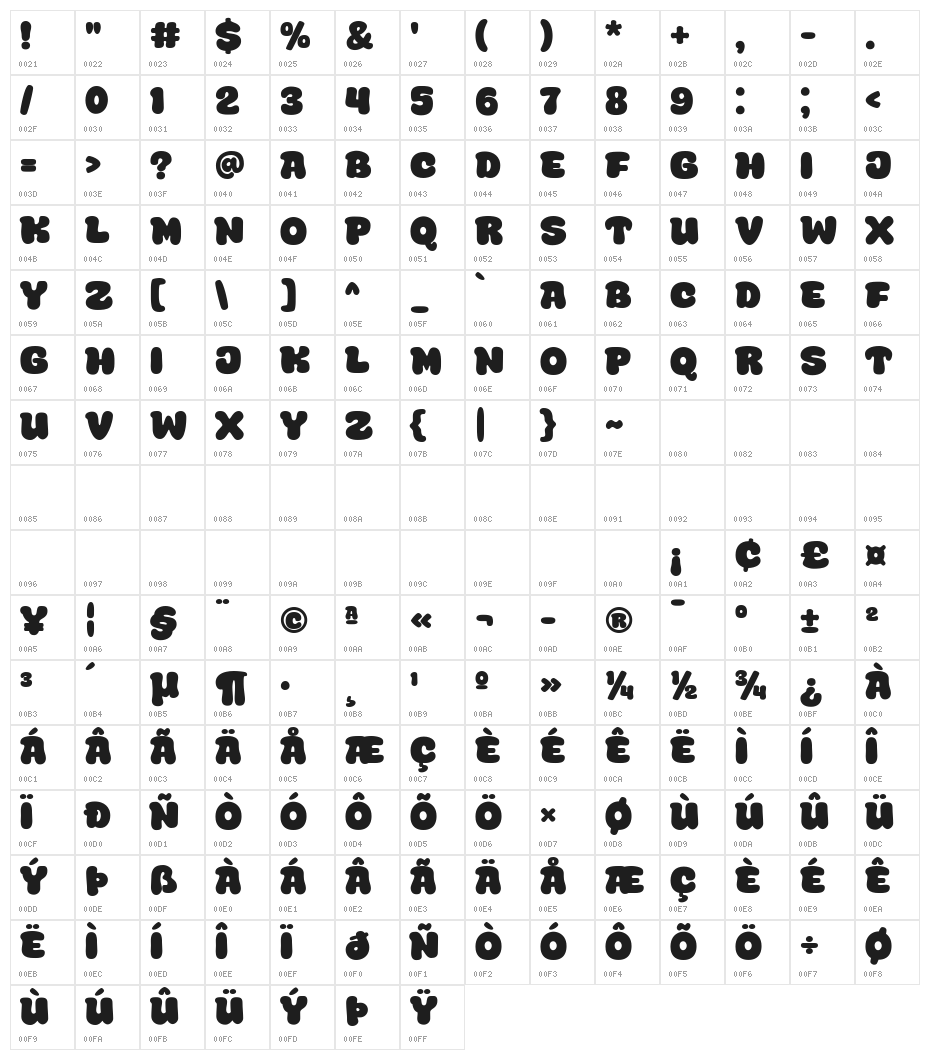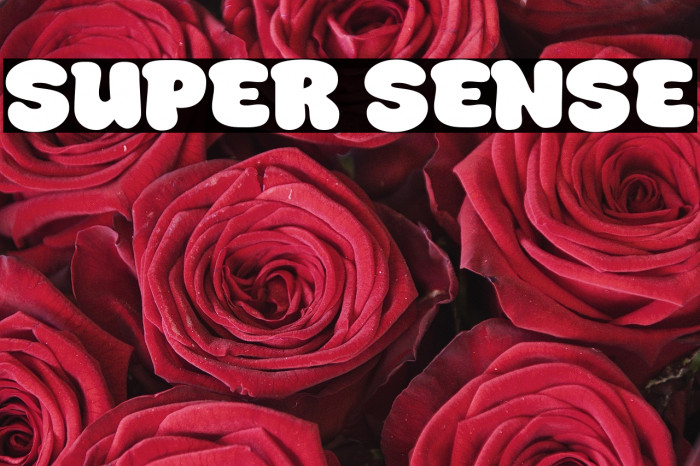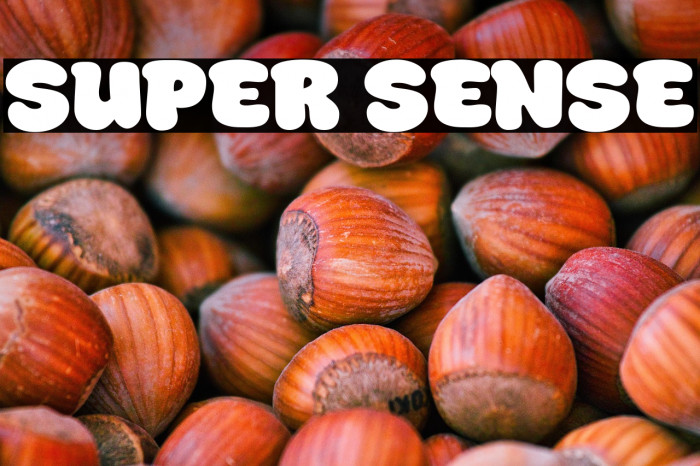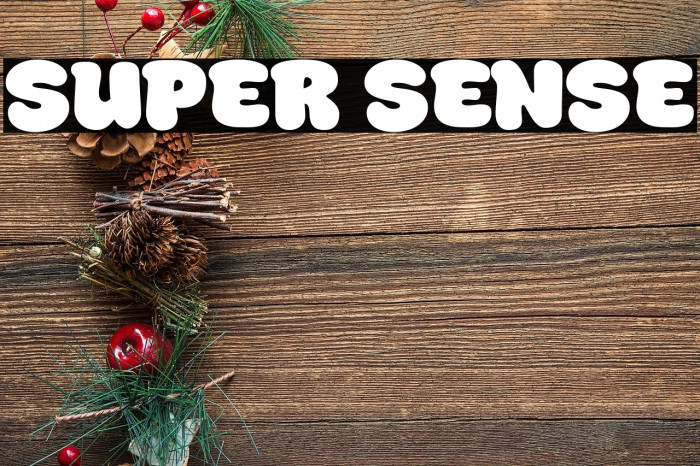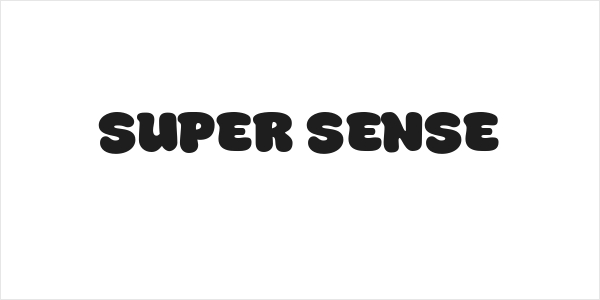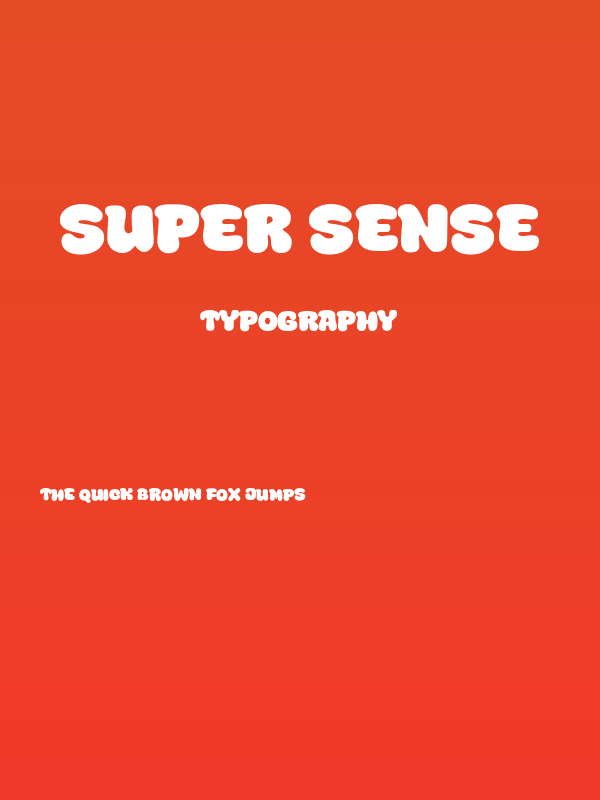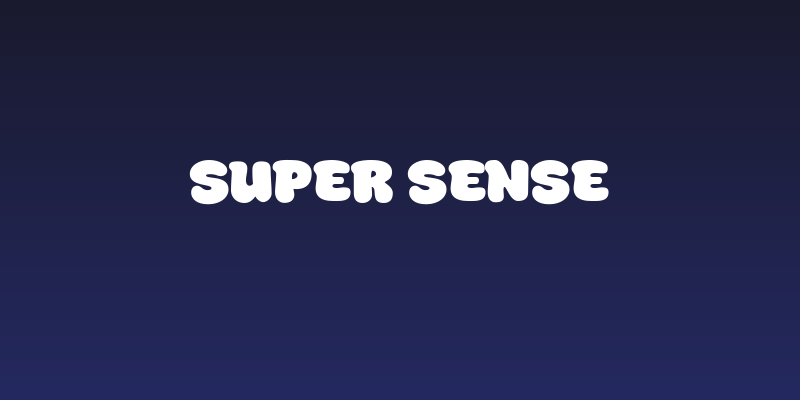
Super Sense Font
Super Sense Description
This font features bold, rounded characters with a playful and chunky appearance. The letters are uniformly thick, giving a sense of weight and presence. The rounded edges and lack of sharp corners contribute to a friendly and approachable aesthetic. The numbers and special characters maintain the same bold and rounded style, ensuring consistency throughout. This font is highly legible and stands out due to its substantial form and smooth curves, making it suitable for attention-grabbing designs.
| Overall Style | Playful, Modern |
| Proposed Projects | Ideal for children's books, playful branding, posters, and any design requiring a fun and bold statement. |